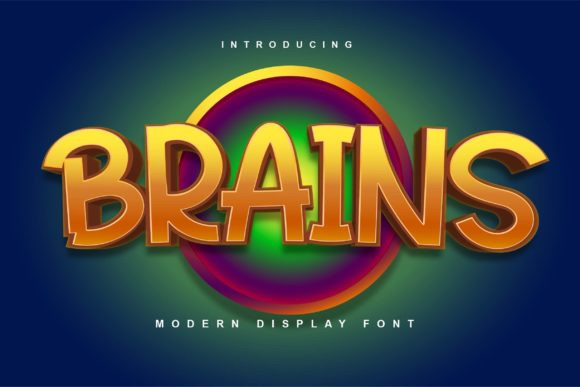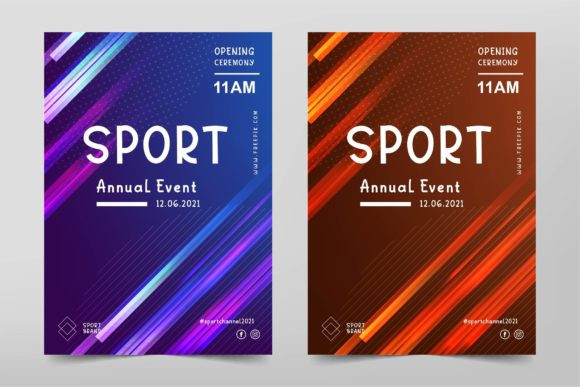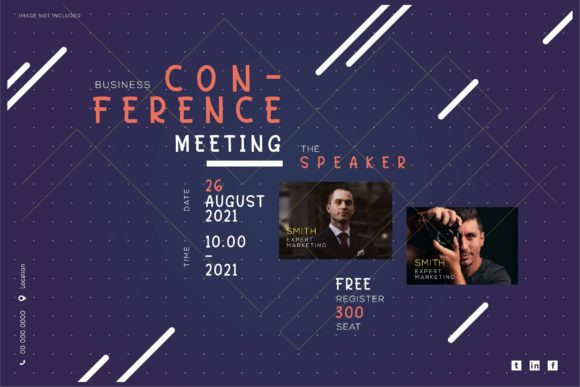
Brains Font
Brains is a beautiful and stylish display font. With cheerful and cozy characters, this typeface is the right choice for a wide range of designs such as children’s games, titles, brand names, magazines, and others!